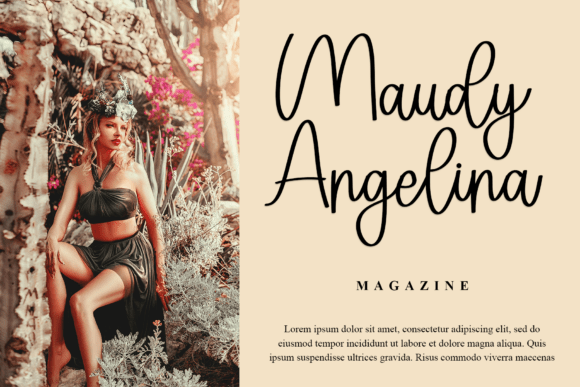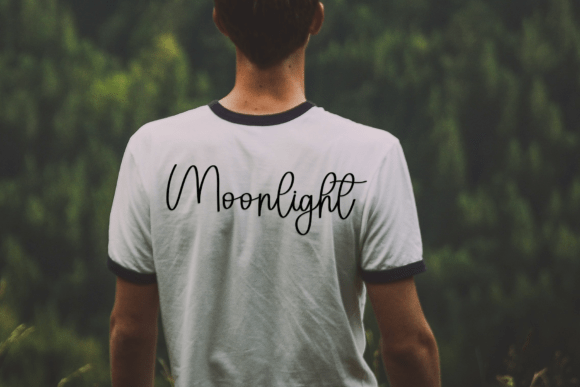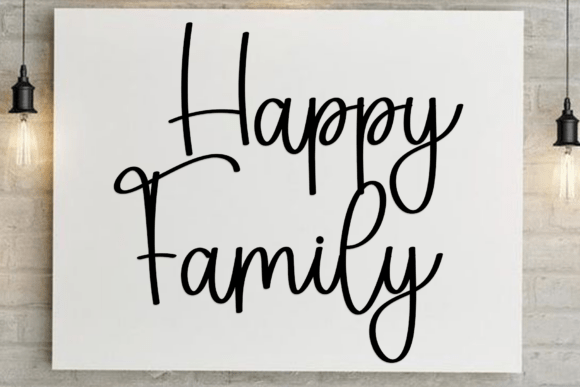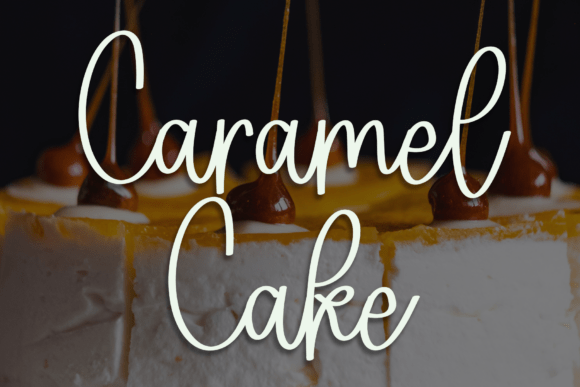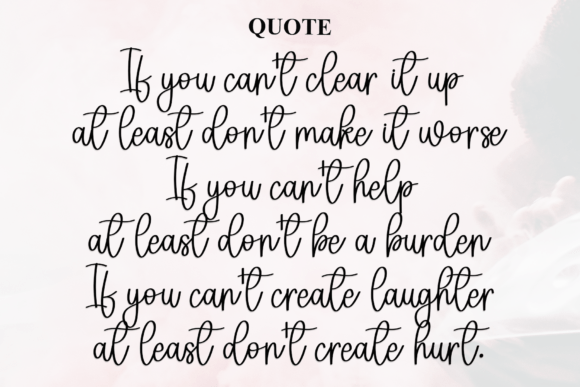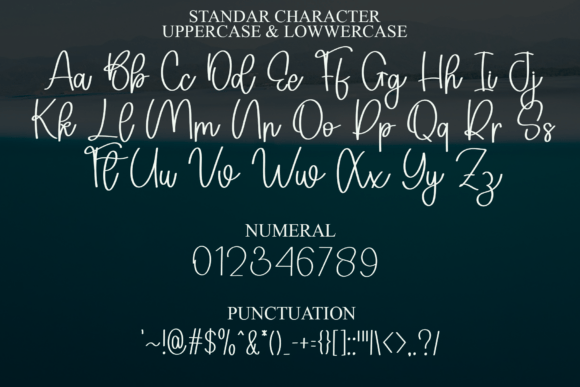
Unlock the Magic of the Holiday Season with Handmade Wishes Font
It’s that time of the year when creativity knows no bounds, and the festive spirit takes over. You’re sitting at your desk, surrounded by twinkling lights, and a steaming cup of hot cocoa. Your mind is racing with ideas for the perfect holiday card, and you know exactly what’s missing – a font that captures the essence of the season. This is where the Handmade Wishes Font comes in, a delightful typeface that embodies the magic and wonder of the holiday season.
With its whimsical flair and decorative elements, the Handmade Wishes Font adds a touch of enchantment to your designs. Whether you’re creating greeting cards, gift tags, or holiday-themed projects, this font brings a cheerful and nostalgic ambiance to your words. As a designer, you know the value of a well-crafted font, and the Handmade Wishes Font is sure to become a treasured addition to your typography arsenal.
Key Features of Handmade Wishes Font
- Font Family: Handmade Wishes Font, a unique and creative script font designed to add a personal touch to your designs.
- Unique Characteristics: The font features a whimsical and handmade feel, with subtle imperfections and variations in letterforms, giving it a personal and unique touch.
Handmade Wishes Font Review
As a designer, I was excited to dive into the Handmade Wishes Font, hoping to find a unique and charming addition to my design arsenal. ✨ One of the first things that caught my eye was the font’s whimsical and playful feel, perfect for creating a sense of warmth and approachability in branding and advertising projects.
Here are some of the things that I liked about the Handmade Wishes Font:
- Unique and distinctive character set
- Perfect for creating a sense of personality and charm
- Works well in digital and print applications
- Supports a wide range of languages
- May not be suitable for formal or corporate branding
- Some characters may be difficult to read at small font sizes
- Lacks a comprehensive character set for advanced typography
Overall, I think the Handmade Wishes Font is a great addition to any designer’s toolkit, especially for projects that require a touch of whimsy and personality. While it may not be perfect for every project, it’s a versatile and charming font that can add a unique touch to a wide range of designs. ⚠️ Just be mindful of its limitations and use it judiciously to get the most out of it.
To get the most out of the Handmade Wishes Font, try:
1. Pairing it with a clean and simple background to let the font shine.
2. Using it in bold or italic styles to add emphasis.
3. Experimenting with different font sizes and colors to create visual interest.
The Handmade Wishes Font is perfect for:
2. Baby shower invitations and decorations.
3. Birthday party invitations and decorations.